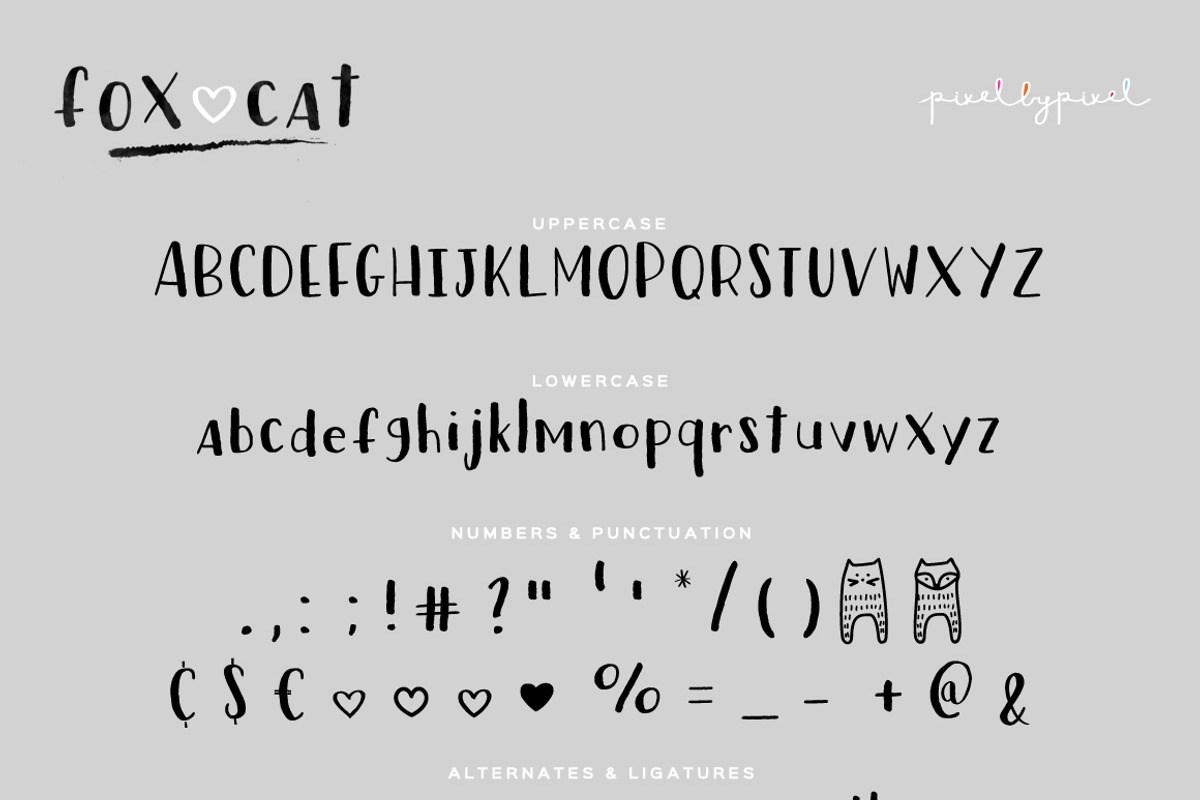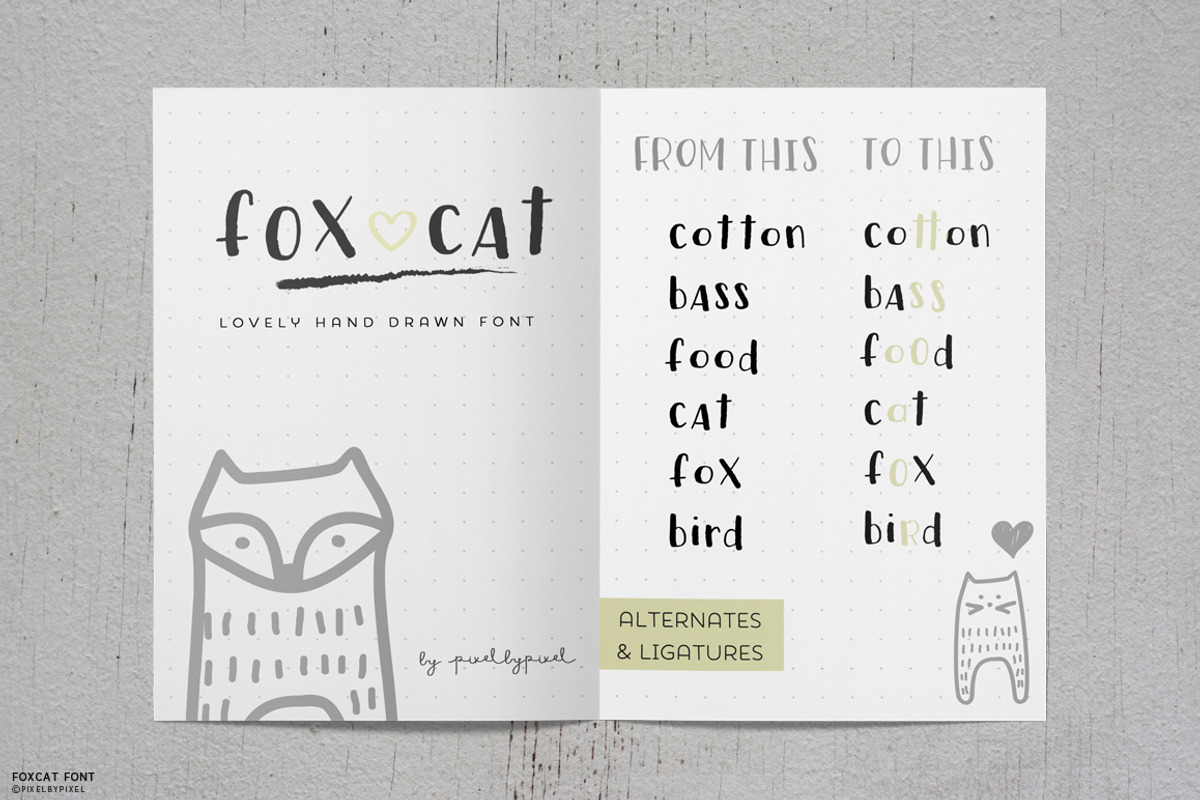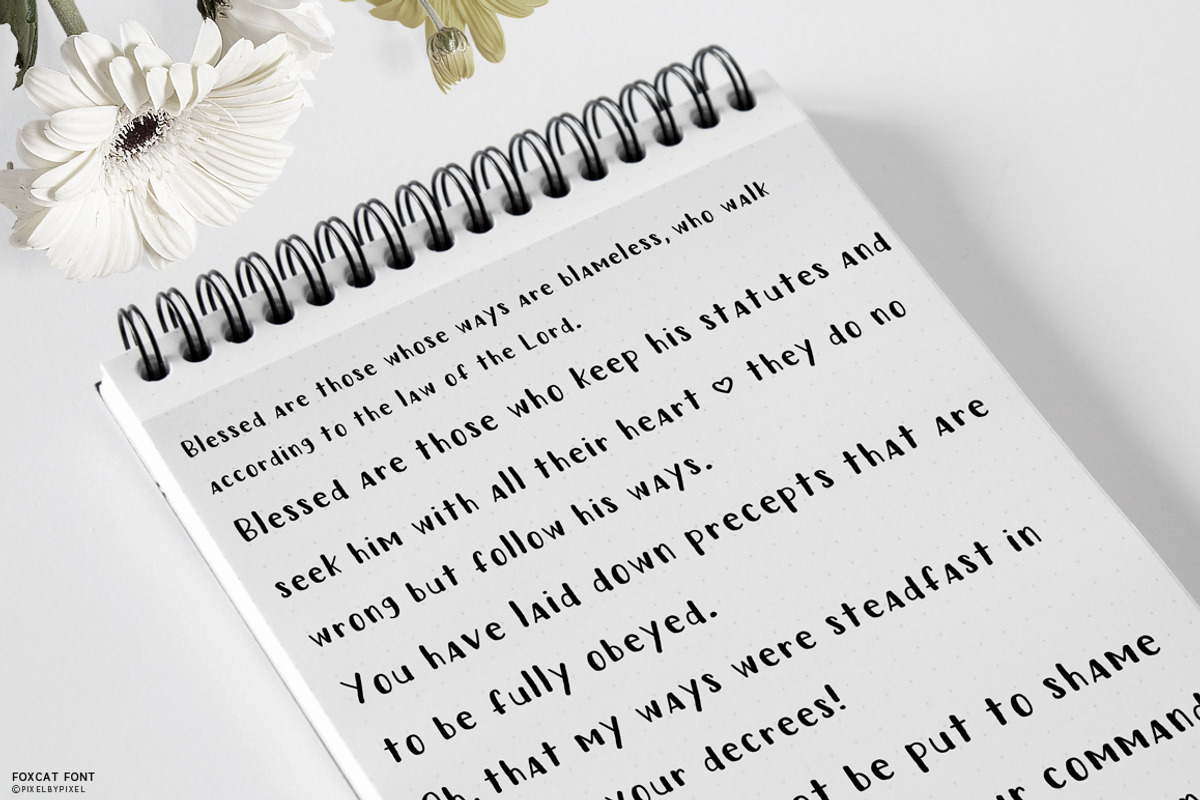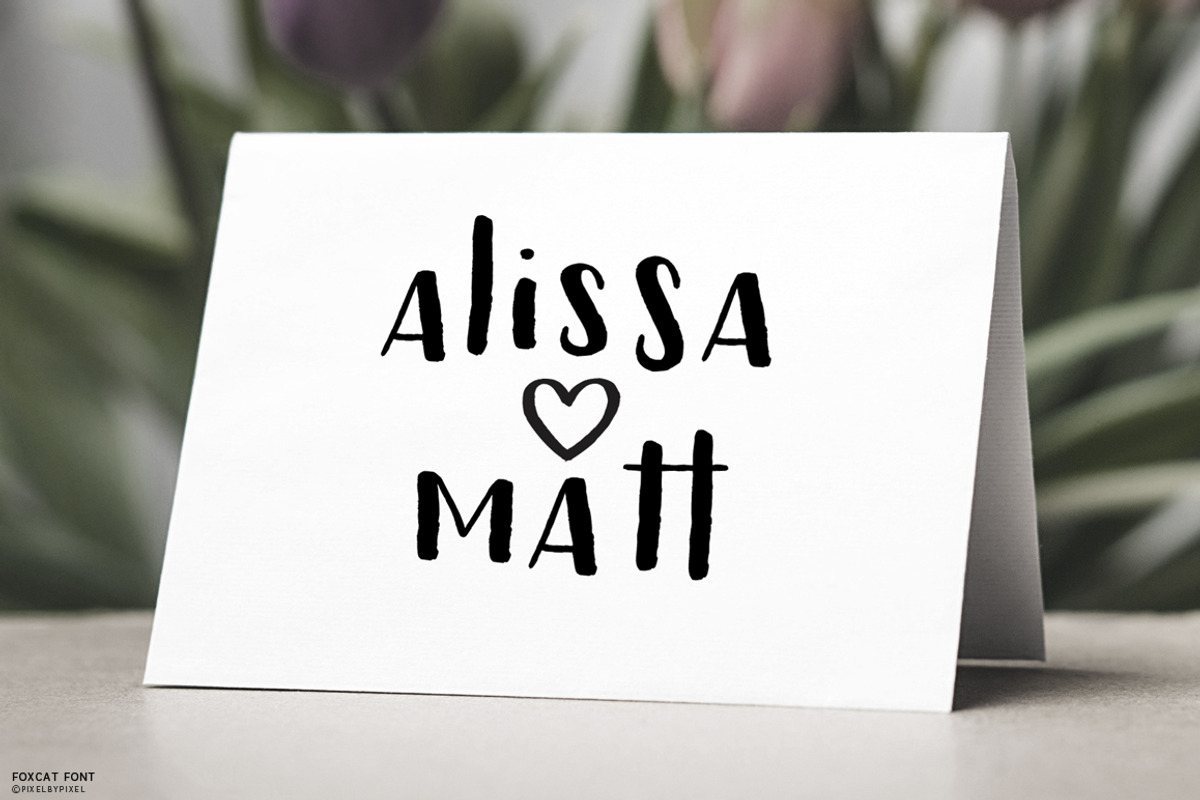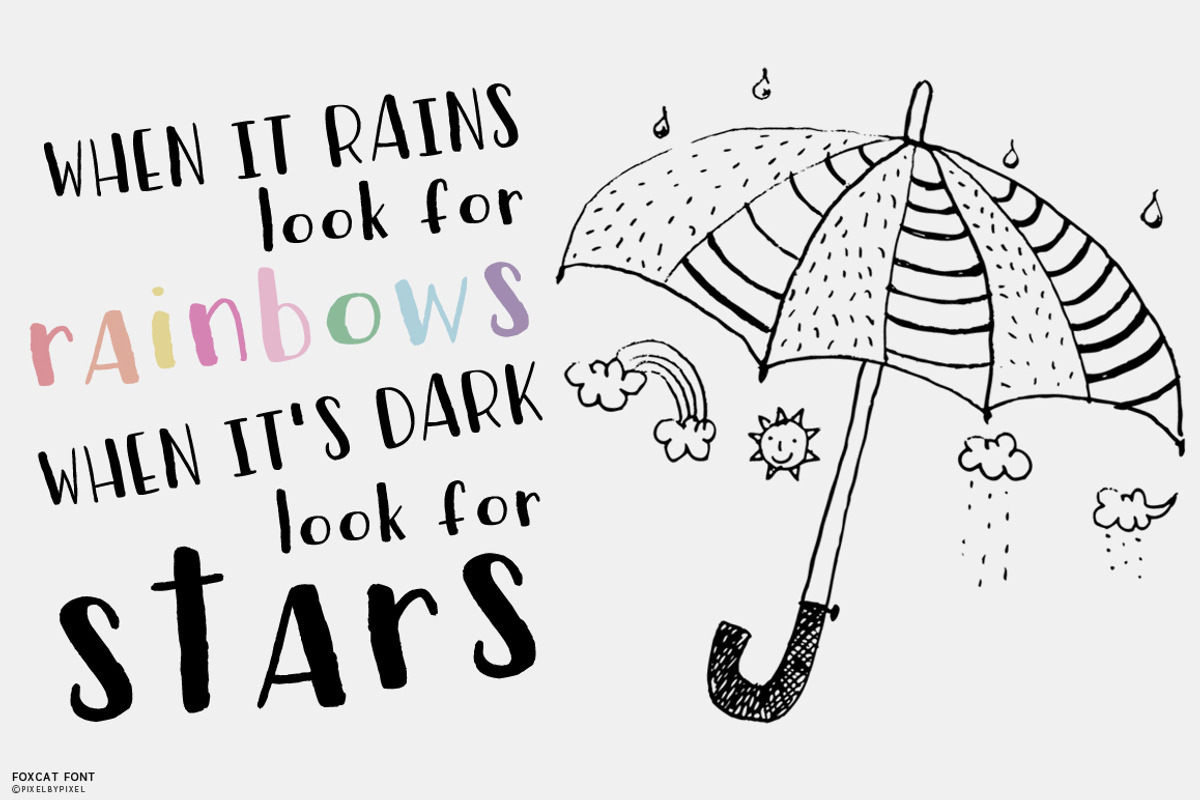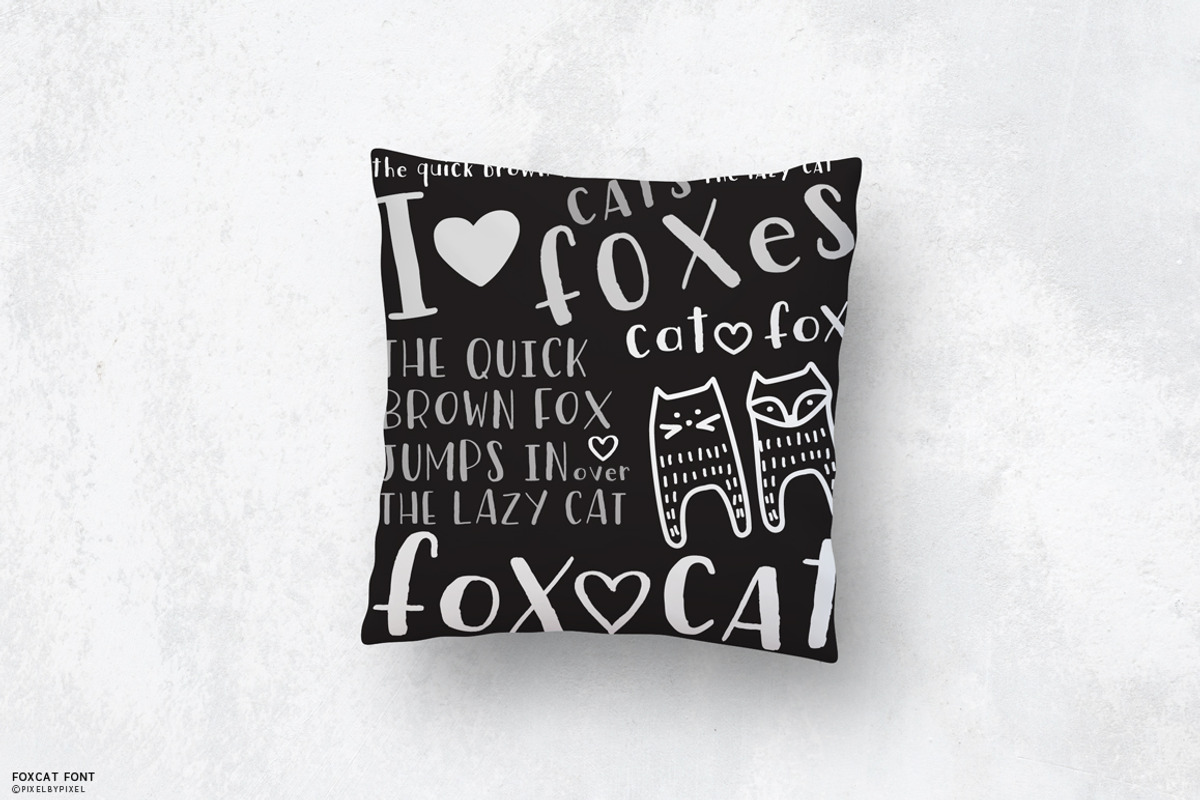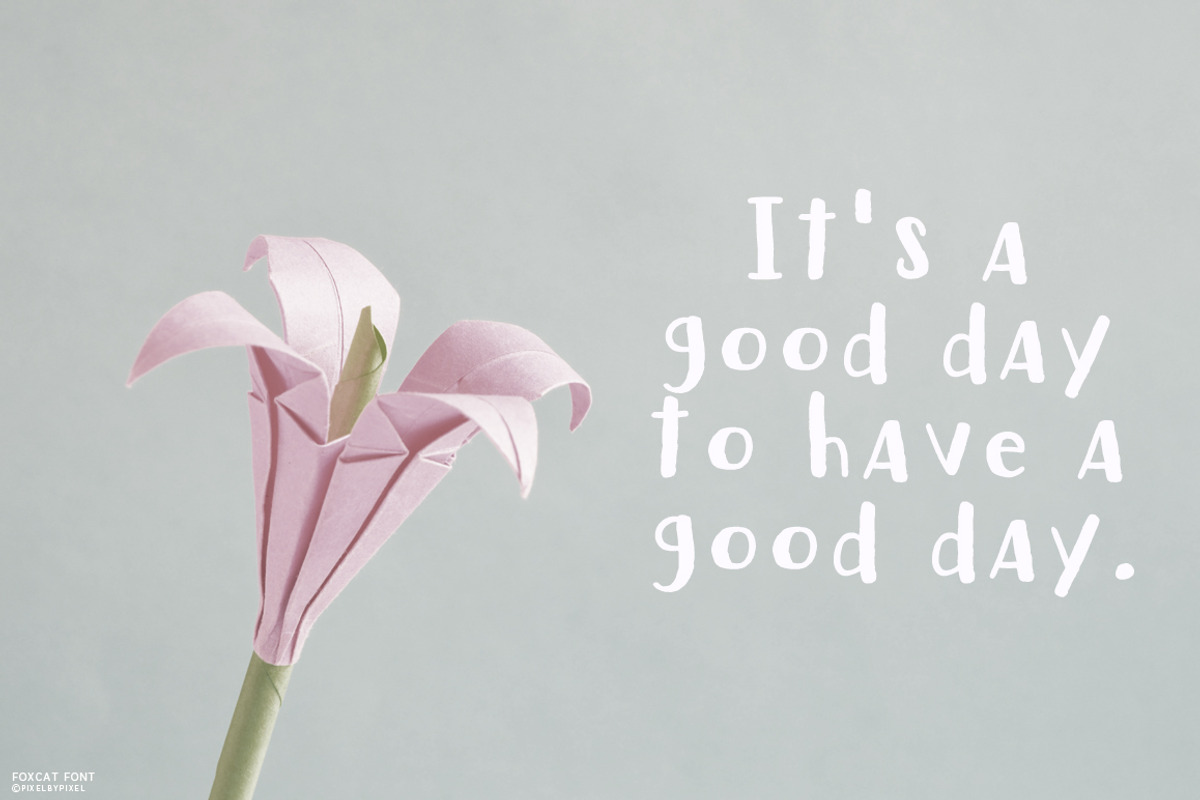
Fox Cat Hand Drawn Font
Fox Cat is a font that features imperfect strokes with a handwritting style. It looks great in quotes, social media posts or simply as a stylish text over any background. Lovely informal and imperfect look.
Uppercase, Lowercase, Numerals and Punctuation